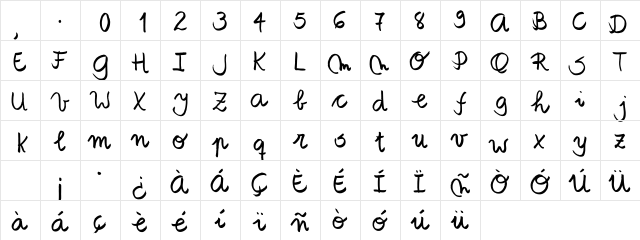
Tanaestel Brush Script 01 Regular
Design Context for Tanaestel Brush Script 01 Typeface
Tanaestel Brush Script 01 brings a calligraphic fluidity to the page — its connecting strokes and expressive curves give it an unmistakably human quality.
Font Pairing: Combine Tanaestel Brush Script 01 with a simple geometric sans for maximum contrast — the tension between flowing curves and clean structure is a classic typographic pairing.
Pro Tip: Pair Tanaestel Brush Script 01 with a clean sans-serif for supporting text. The contrast between fluid script and geometric structure creates an elegant typographic hierarchy.